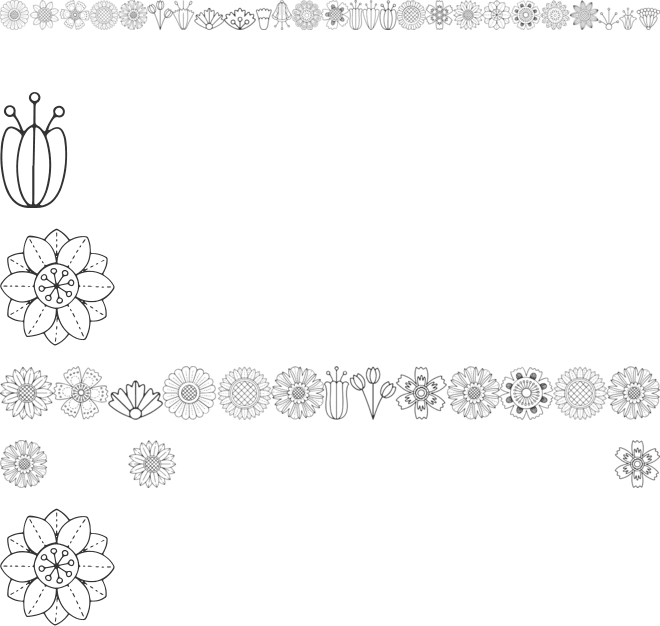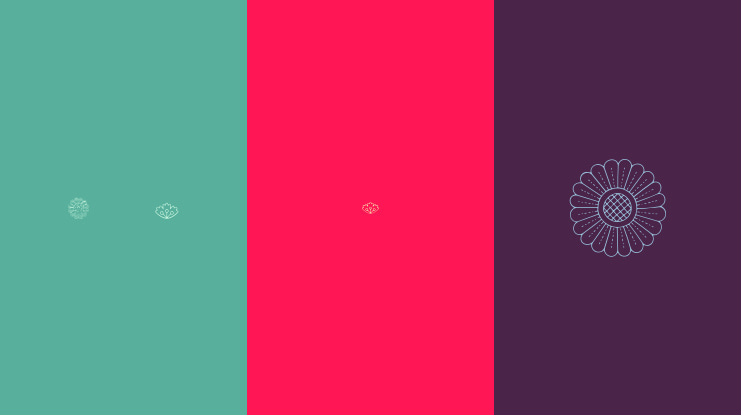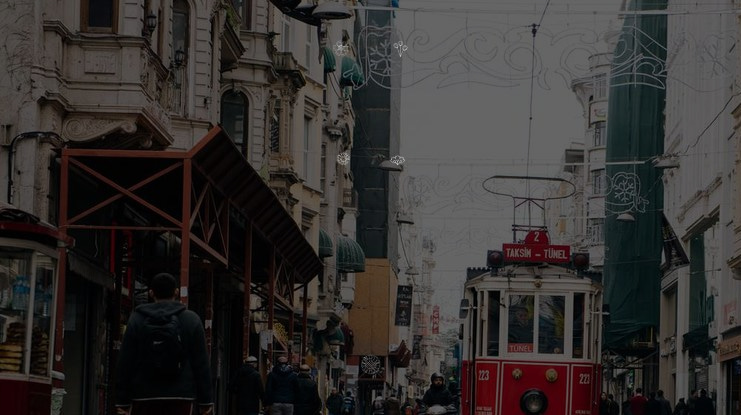
flowerose Font
Birds & Butterflies is a decorative floral typeface with 62 unique shapes and multilingual support—perfect for nature-inspired branding, packaging, and artistic layouts.